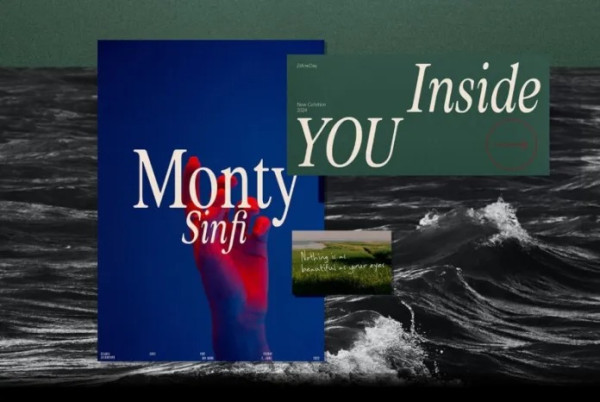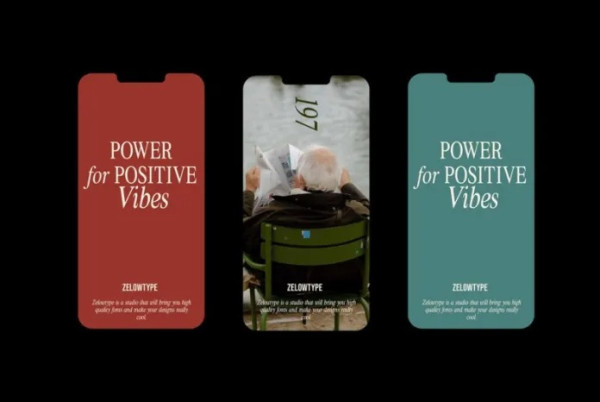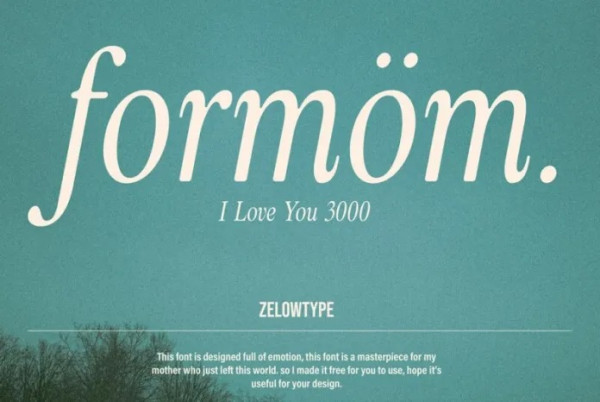
ZT Formom Font
ZT Formom Font is a type of elegant display font that features large, bold lettering with unique decorative details on each character. The font gives off an elegant and classic feel, while still appearing modern and in line with current design trends.
ZT Formom can be used in branding and logo designs, magazines, packaging, fashion accessories.